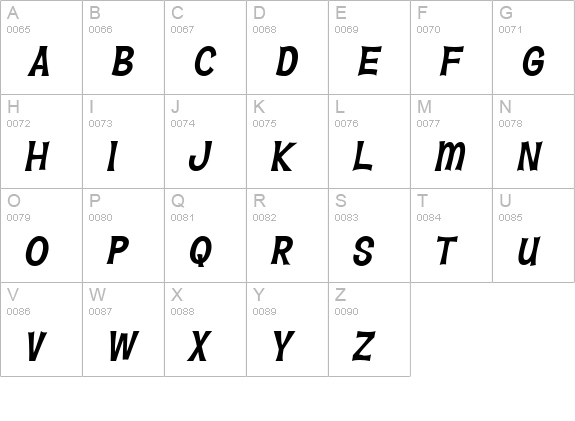
Hawaiian Aloha BTN BoldOblique Font Details
Introducing Hawaiian Aloha BTN BoldOblique, a captivating and expressive font that effortlessly captures the spirit of the enchanting Hawaiian islands. This font combines the elegance of a bold typeface with the added flair of an oblique slant, giving your designs a unique and dynamic appeal. With its fluid and curvaceous letterforms, Hawaiian Aloha BTN BoldOblique exudes a sense of warmth and tropical vibes, making it the perfect choice for any project seeking to evoke a sense of relaxation, adventure, or paradise. Its versatile nature allows it to be equally suited for both formal and casual designs, adding a touch of sophistication to any layout. But what sets Hawaiian Aloha BTN BoldOblique apart is not just its stunning aesthetics; it is also available to you completely free of charge! Yes, you heard it right. This extraordinary font is freely available to download at FontsMarket.com, allowing you to effortlessly enhance your designs without breaking the bank. So whether you're designing a travel brochure, creating a logo for a beachfront resort, or simply adding a touch of tropical charm to your personal projects, Hawaiian Aloha BTN BoldOblique will undoubtedly be the perfect companion. Its boldness, elegance, and free availability make it an irresistible choice for any designer or enthusiast seeking to infuse their creations with the Aloha spirit. Download it now at FontsMarket.com and let your imagination take flight in the enchanting world of Hawaiian Aloha BTN BoldOblique.